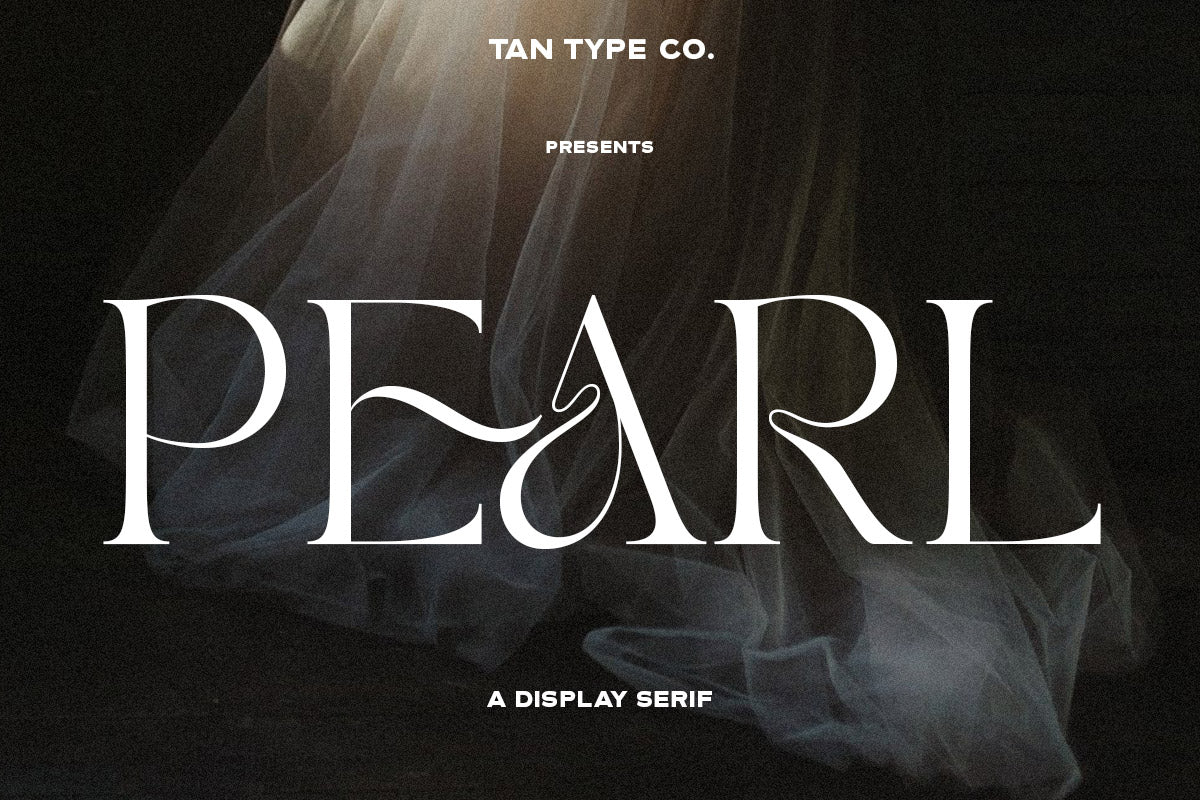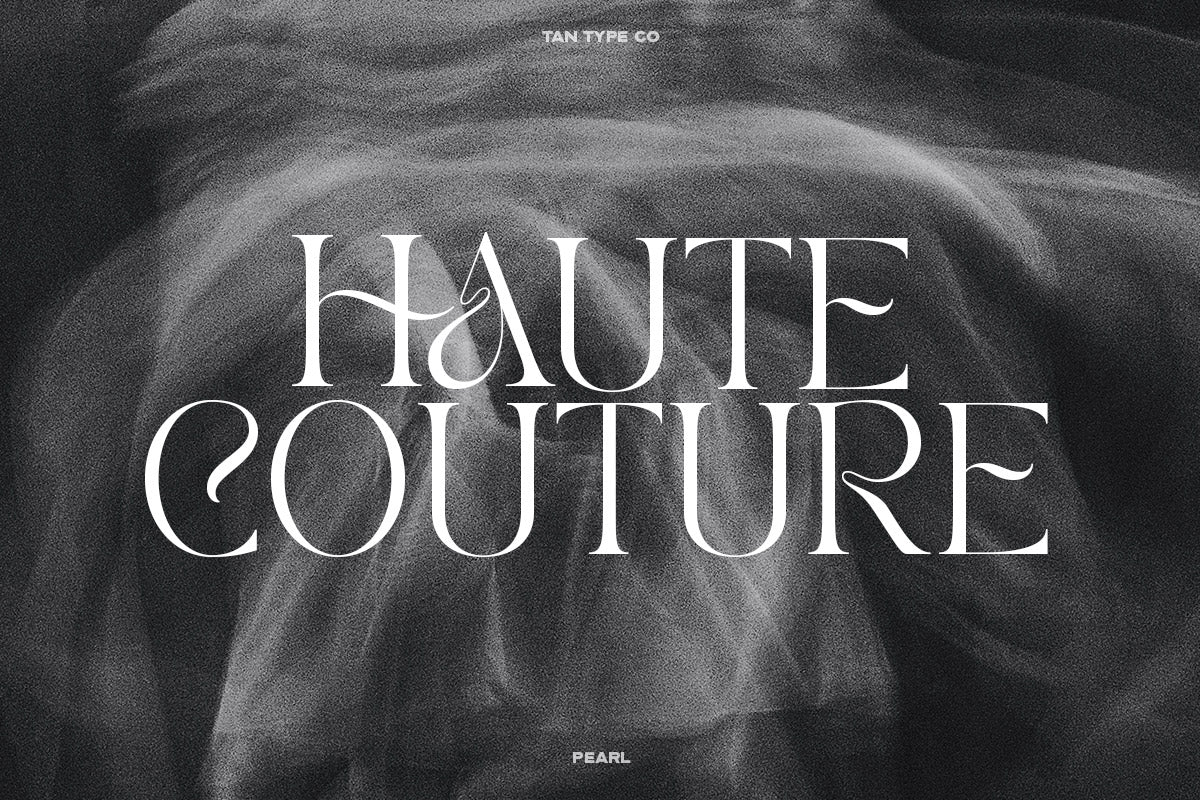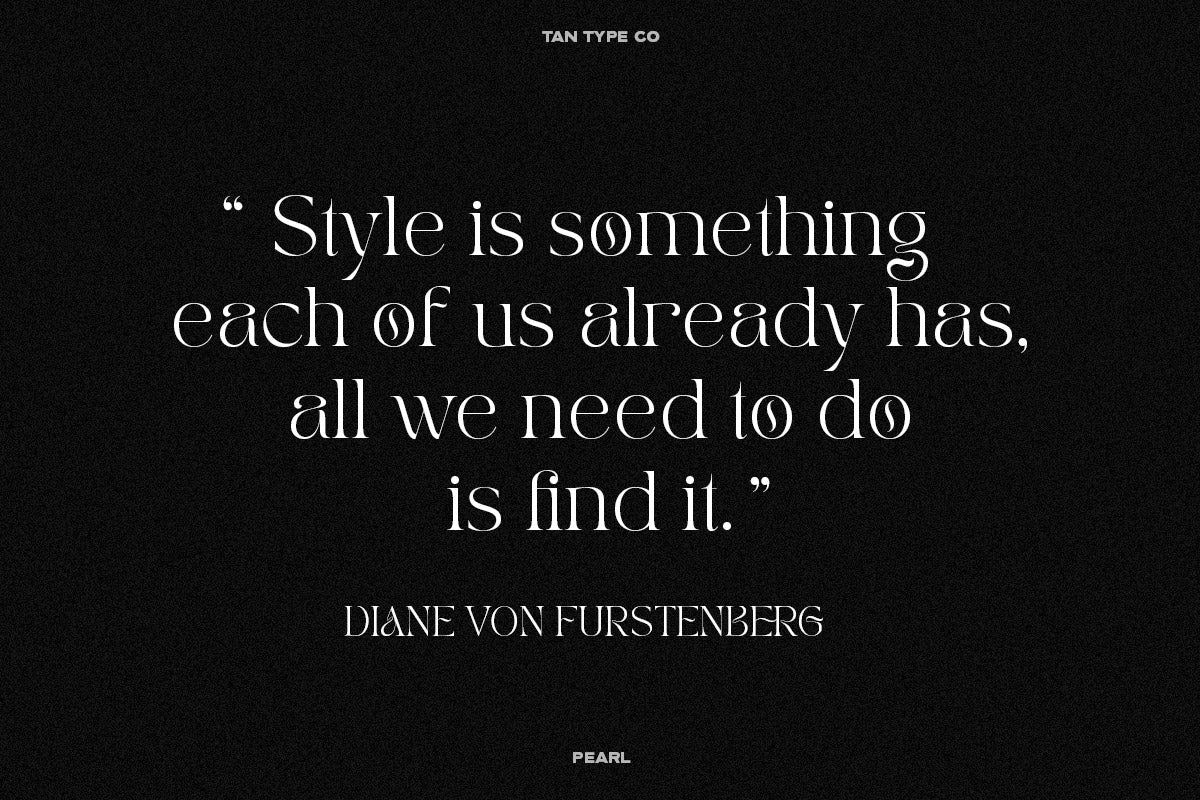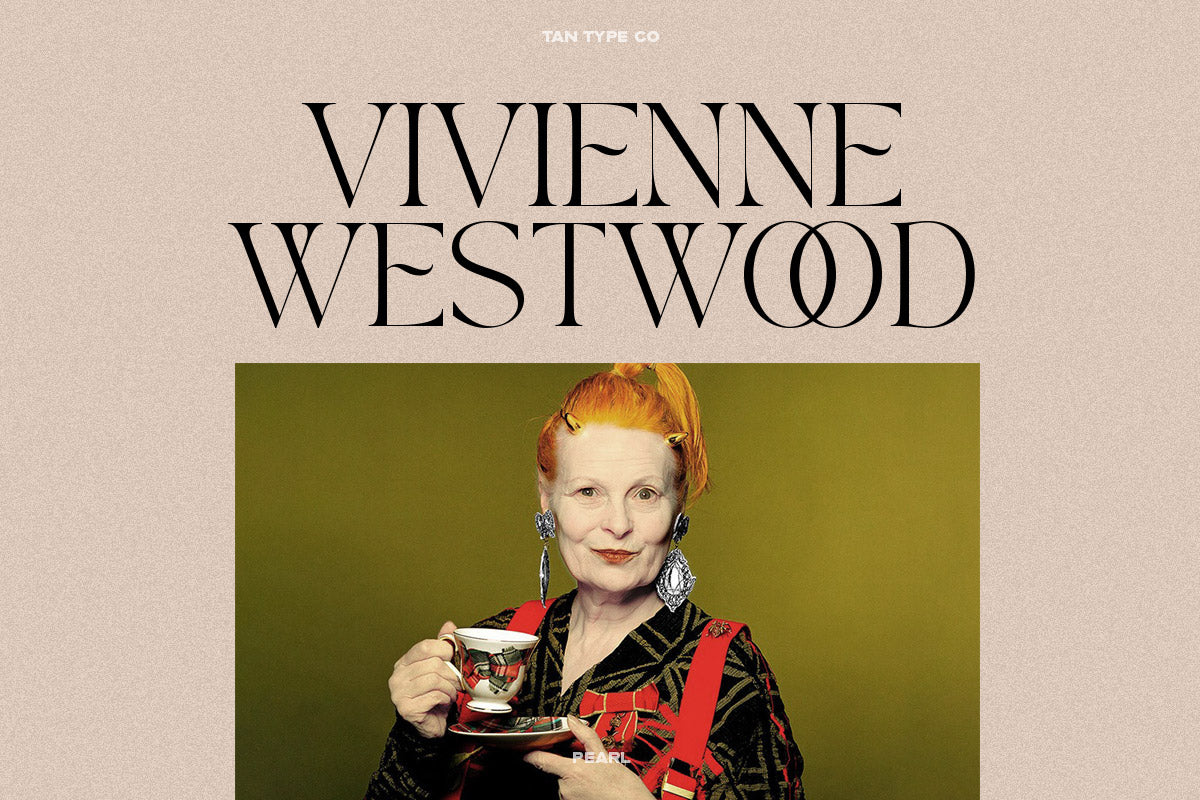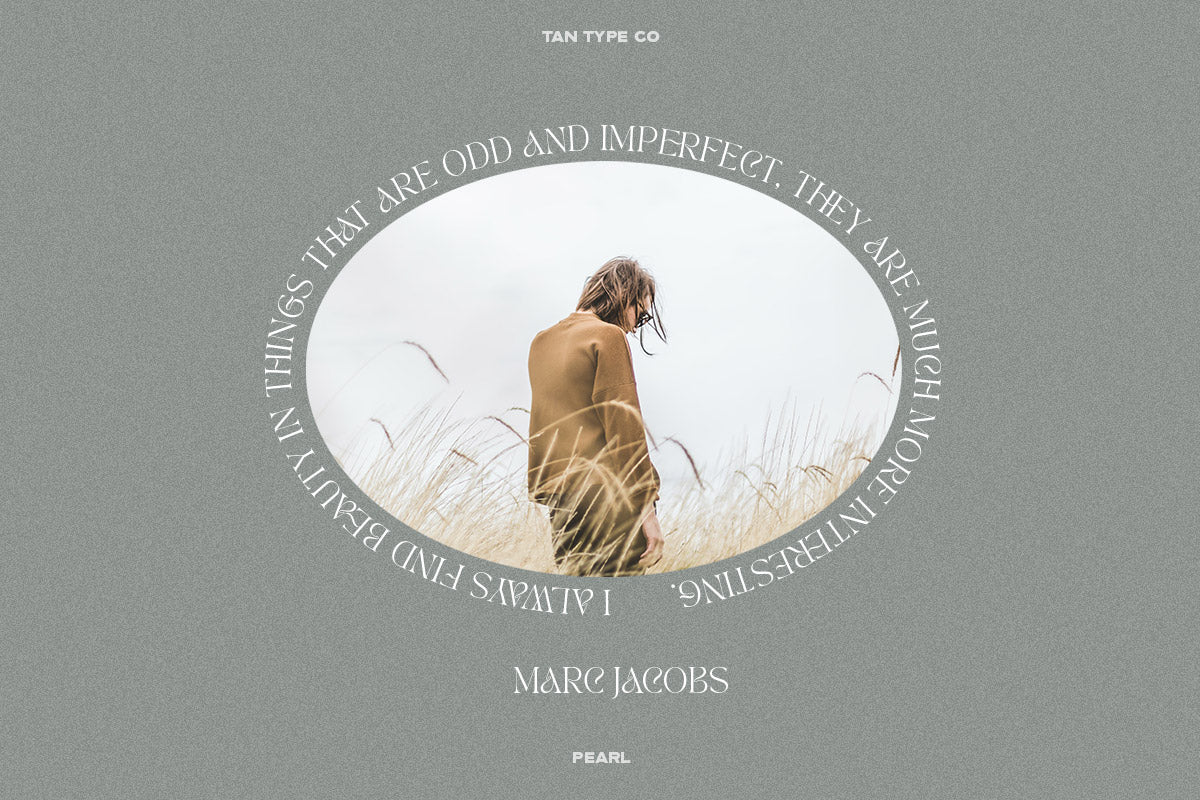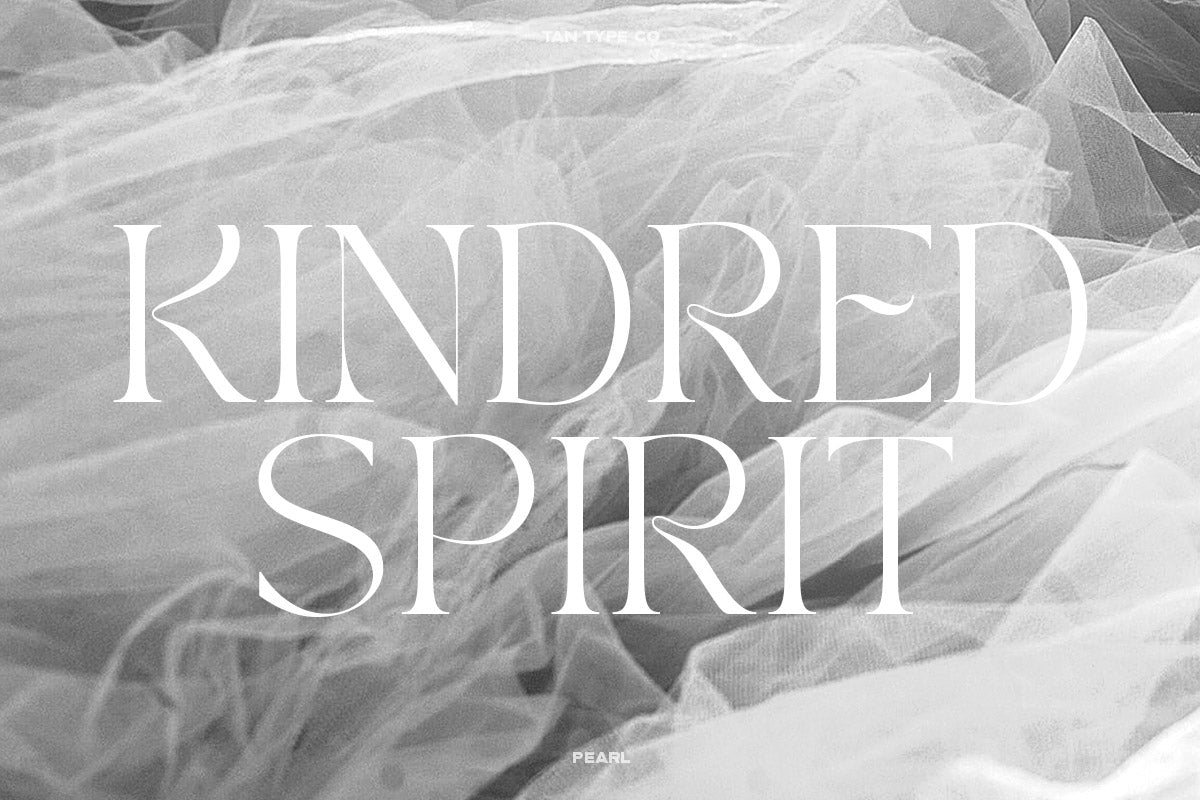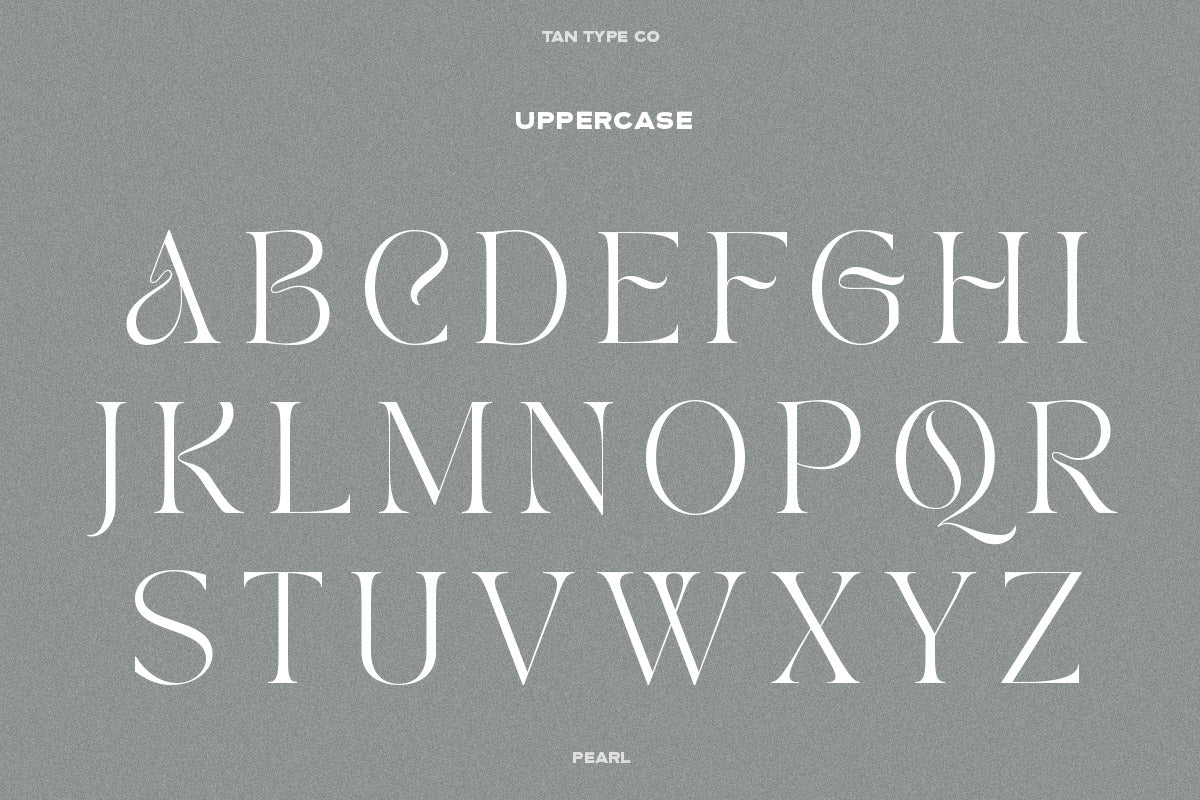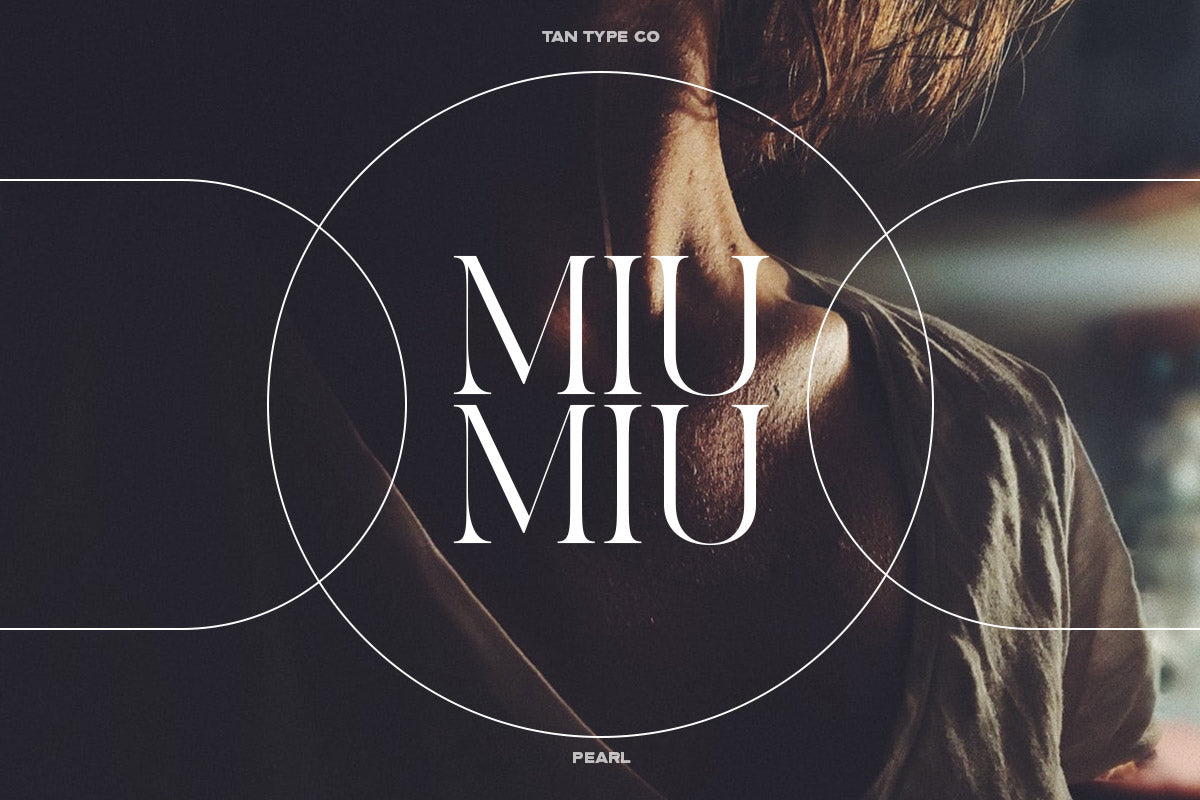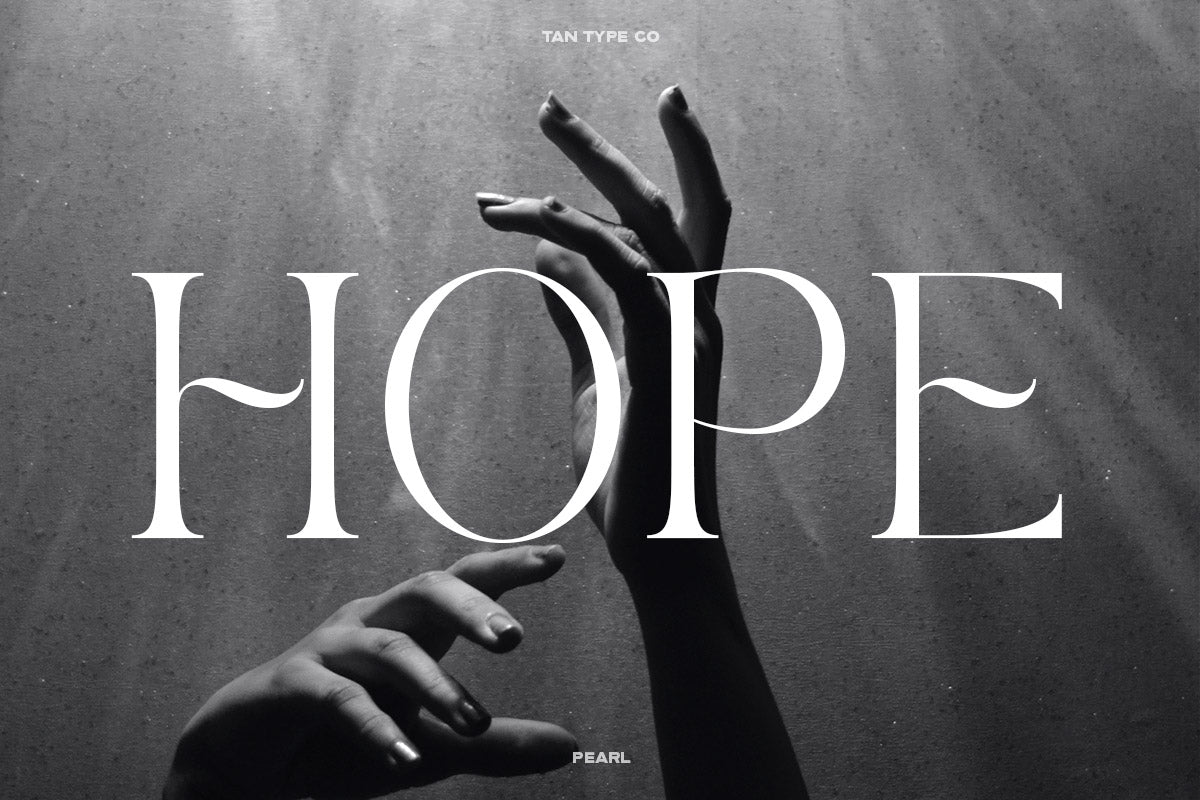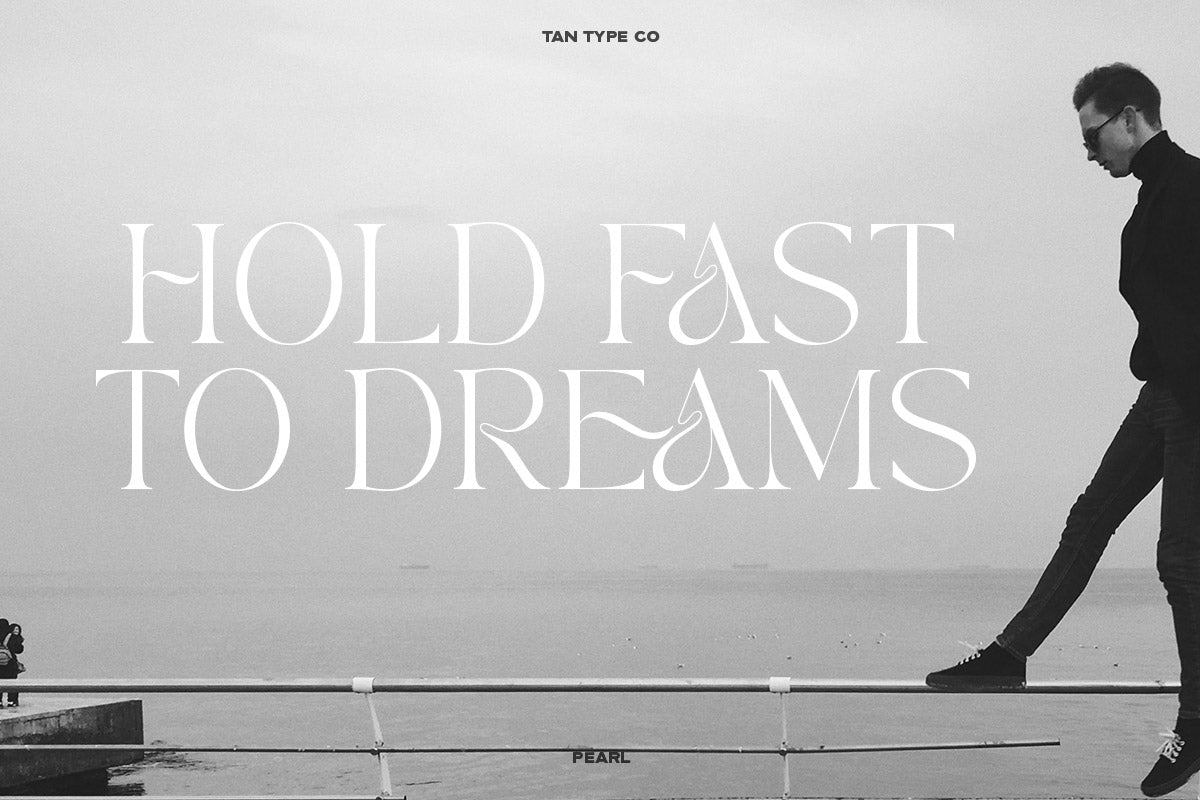
Pearl is a refined display serif with a graceful twist—literally. With its elegant high-contrast strokes and flowing, ornamental ligatures, Pearl brings a sophisticated and luxurious charm to headlines, branding, and editorial work. It strikes a perfect balance between classic beauty and modern artistry, making it ideal for fashion, weddings, and upscale design projects.